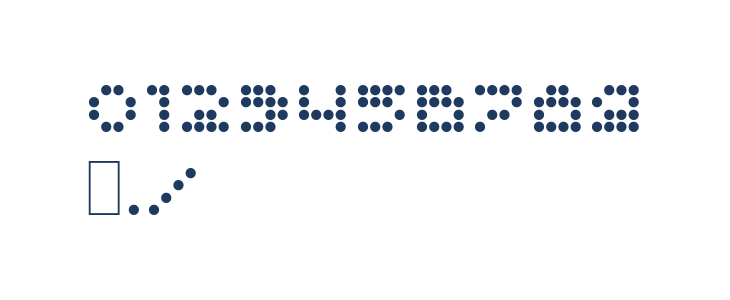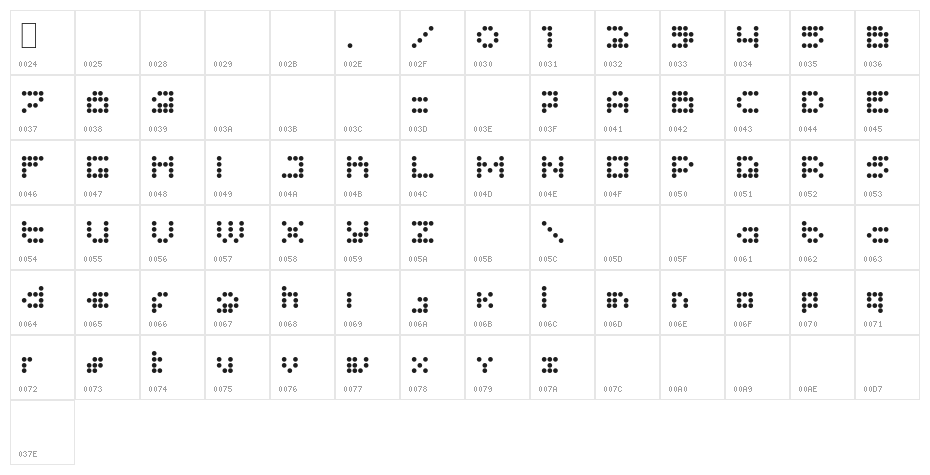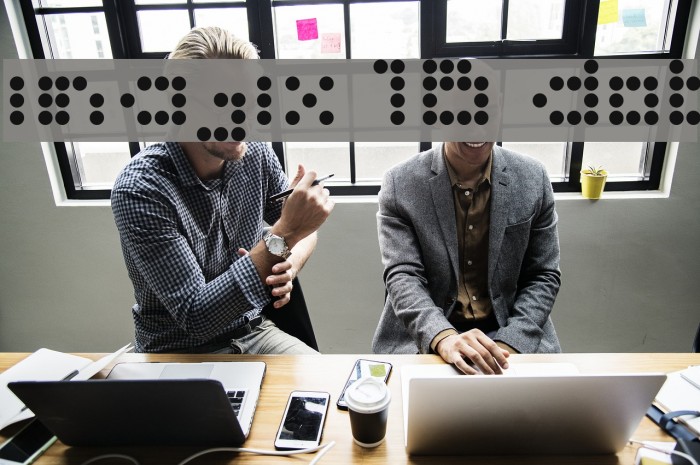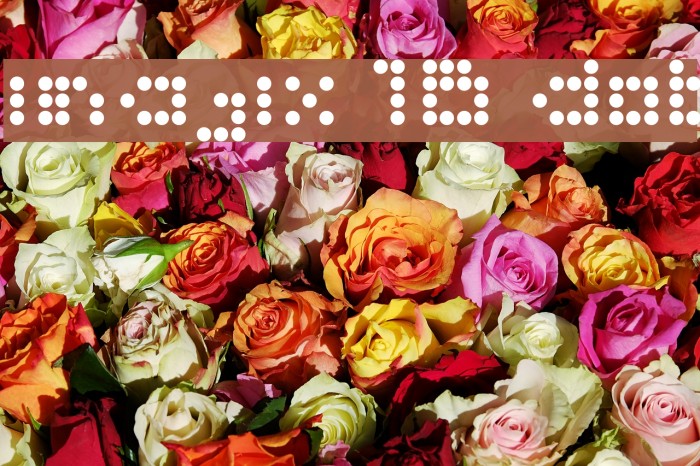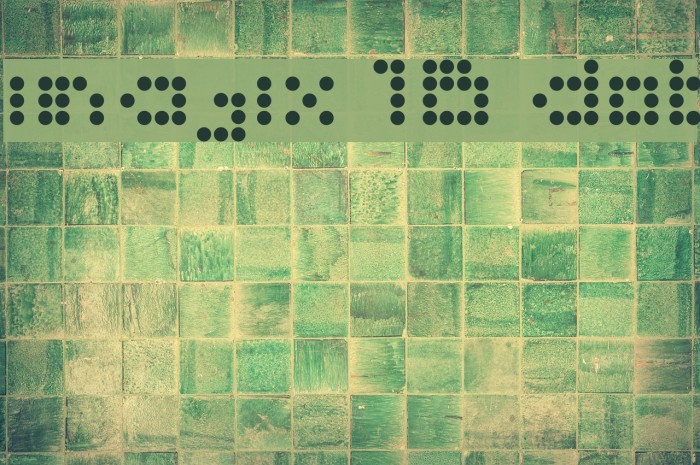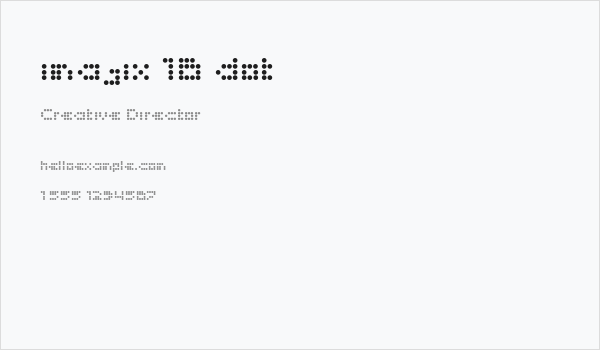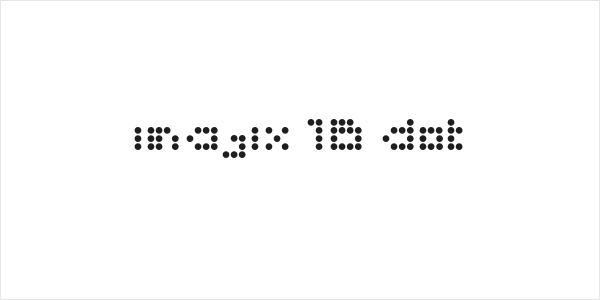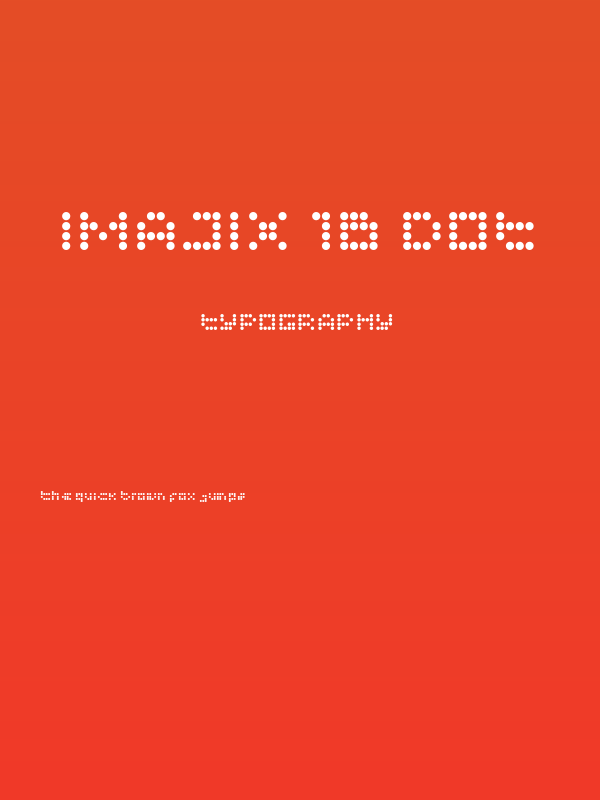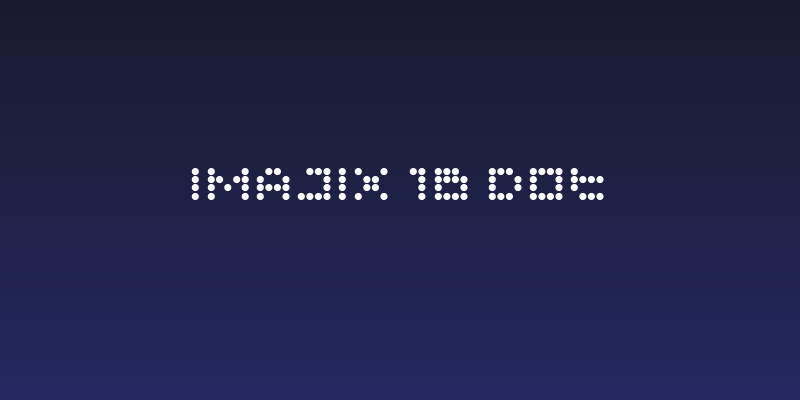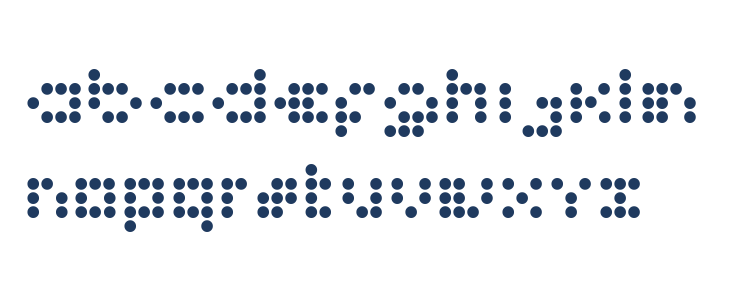
imajix 16 dot Font
imajix 16 dot Description
This font is a unique and creative display typeface composed entirely of dots arranged in a grid-like pattern to form each character. The letters and numbers are constructed with a consistent dot size, giving it a pixelated appearance reminiscent of digital or LED displays. The uniformity of the dots provides a cohesive look, while the spacing between them ensures readability. This font stands out due to its distinct style, making it suitable for projects that require a modern and technological aesthetic.
Proposed ProjectsIdeal for digital displays, tech-themed posters, futuristic designs, and creative branding.